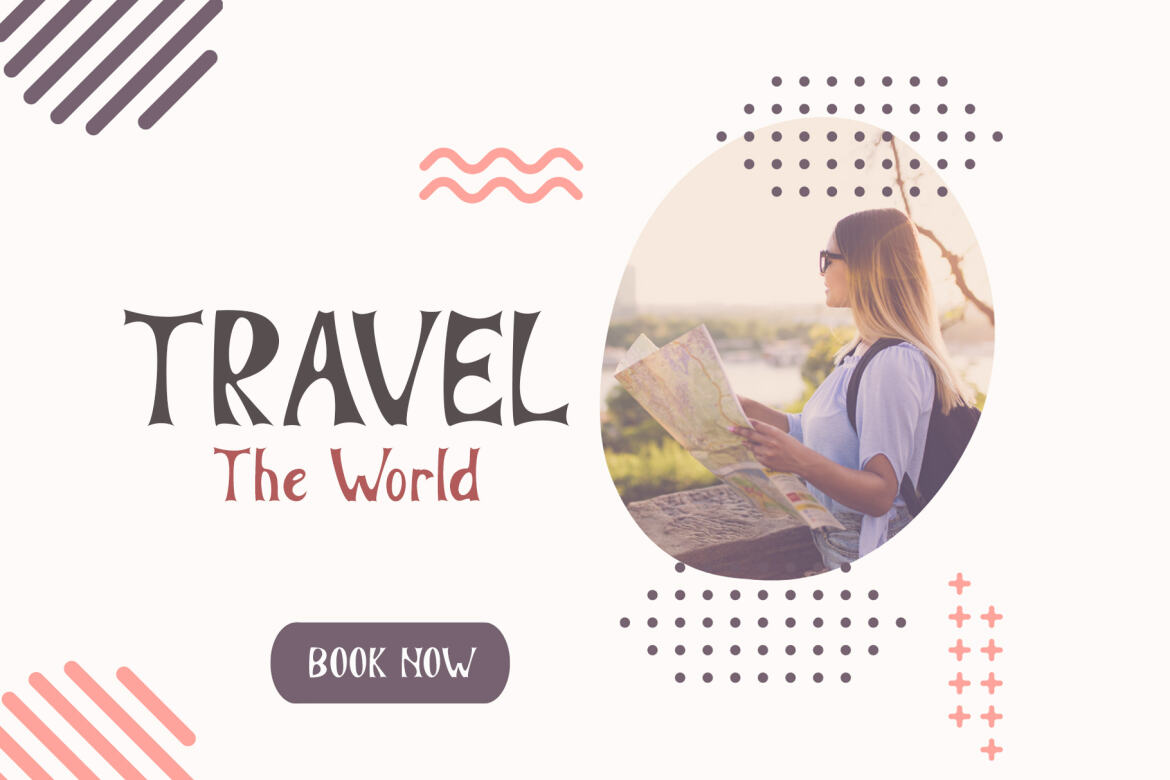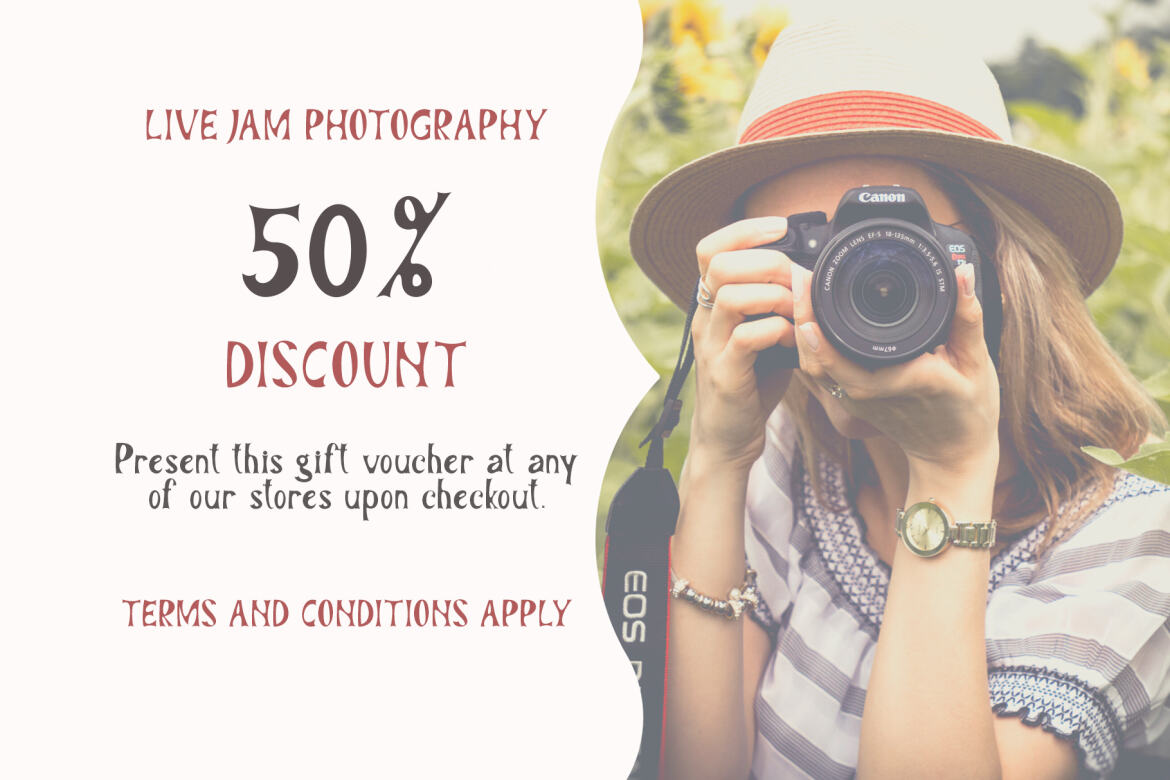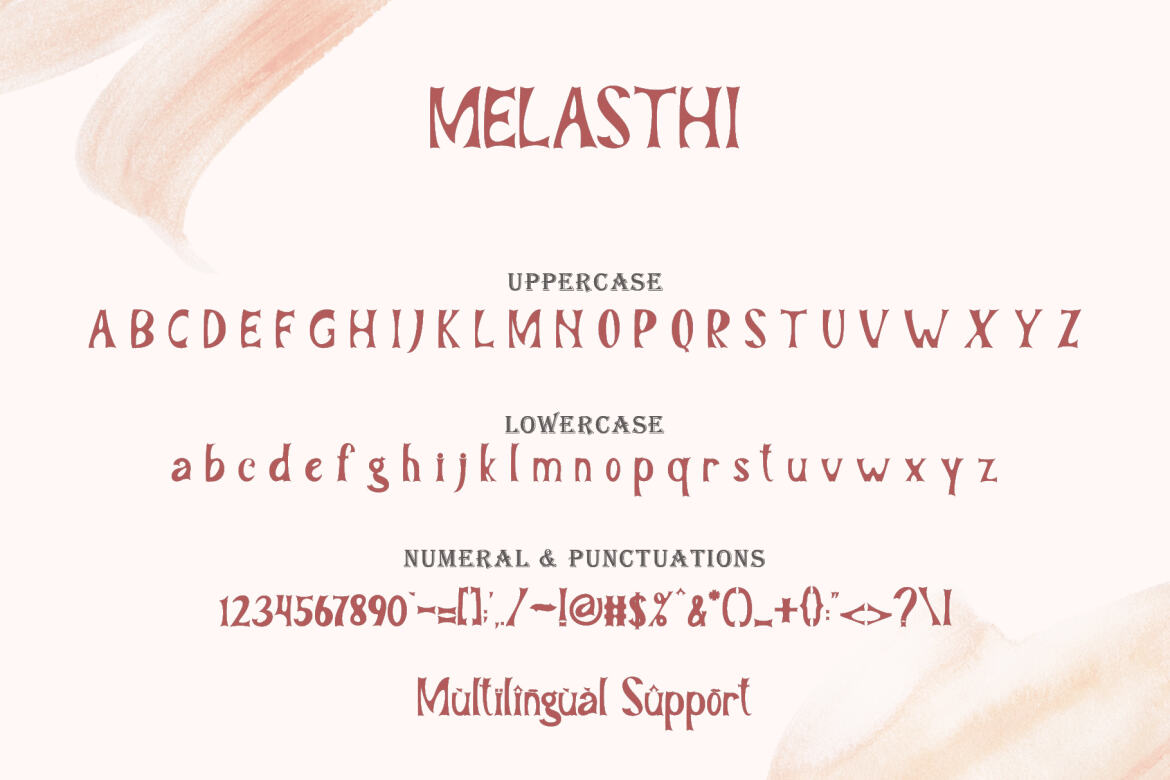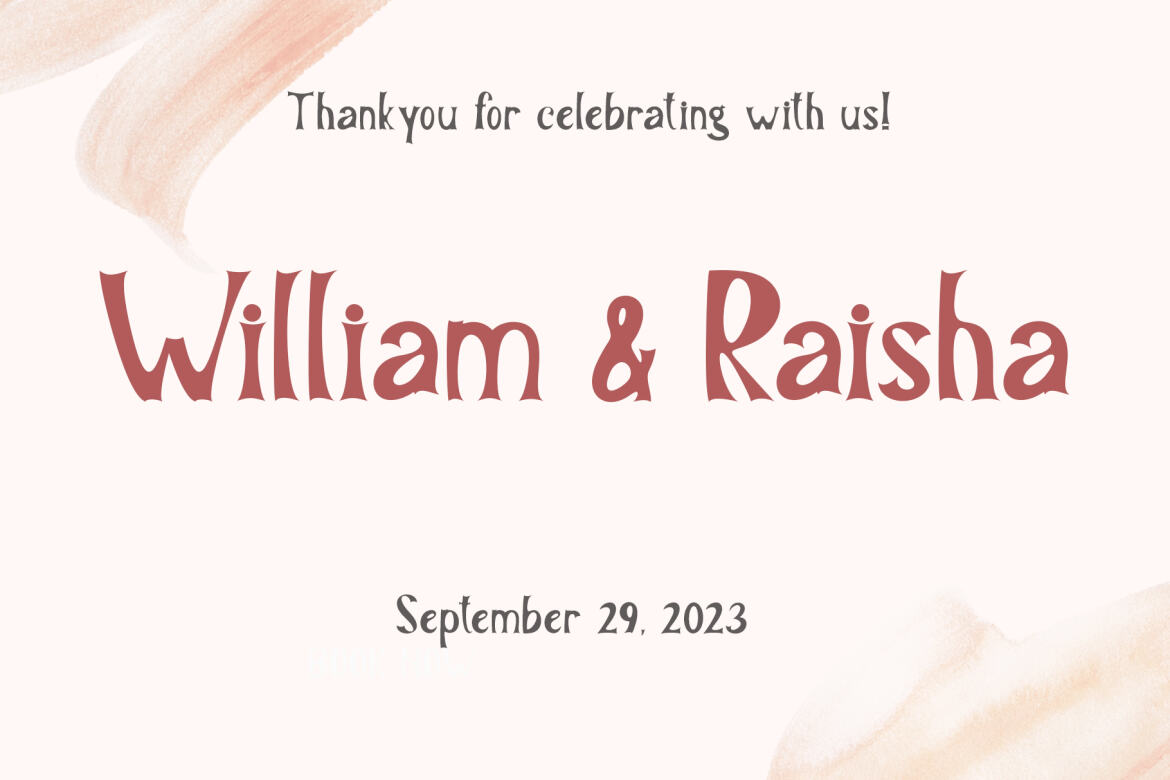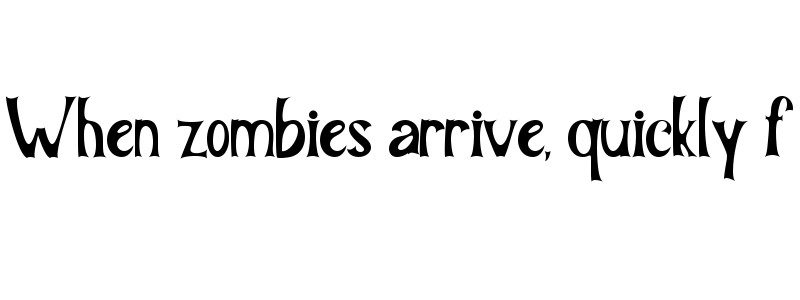
Melasthi FREE Font
MELASTHI
"Melasthi" is a modern sans serif font. This font is very elegant and beautiful. Equipped with uppercase letters, lowercase letters, numbers, punctuations, and also multilingual support. Very suitable for brochures, invitations, posters, banners, stickers, branding, and more.
• lowercase
• numeral
• punctuations
• uppercase